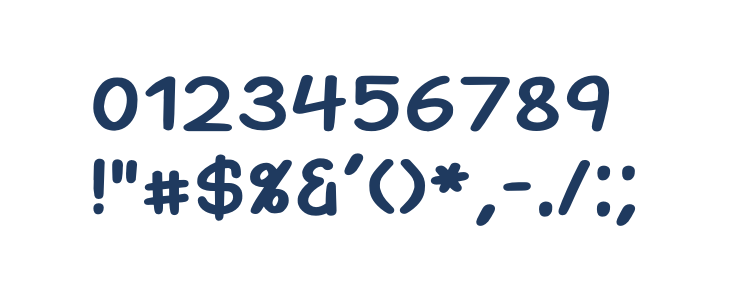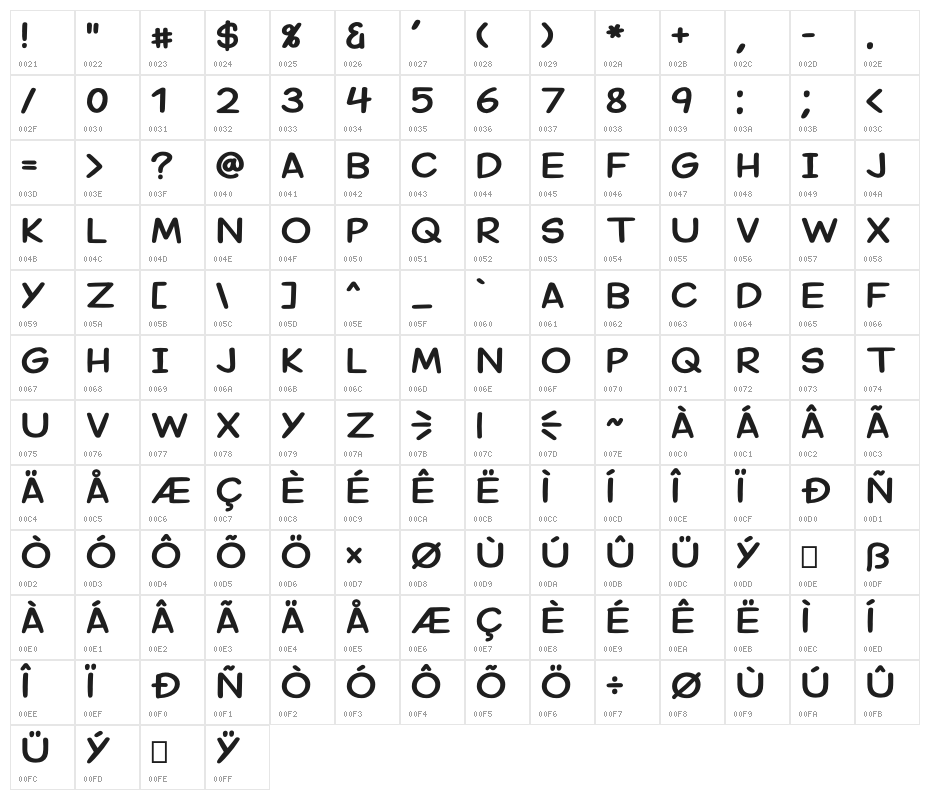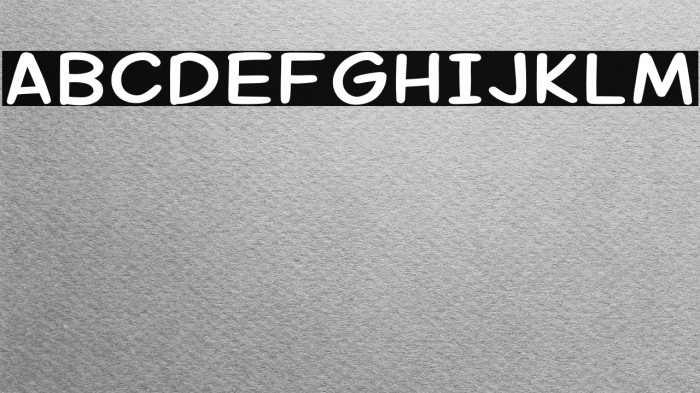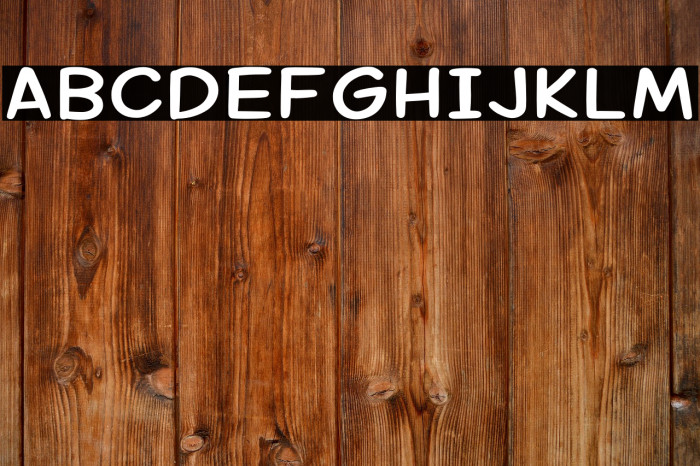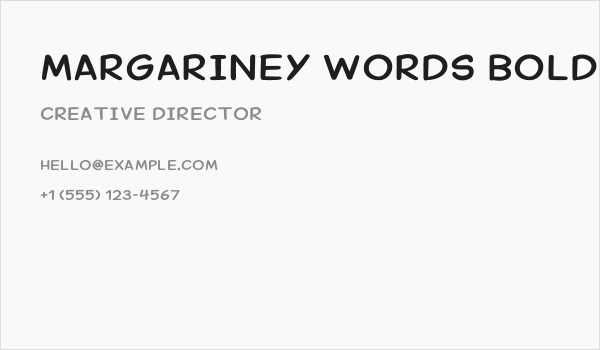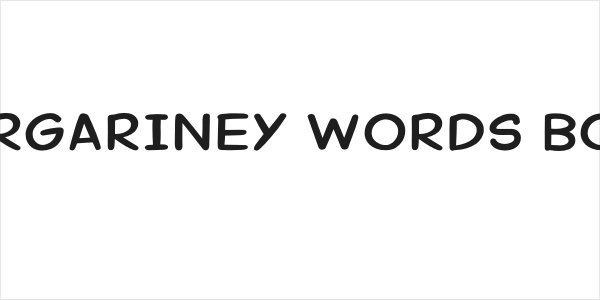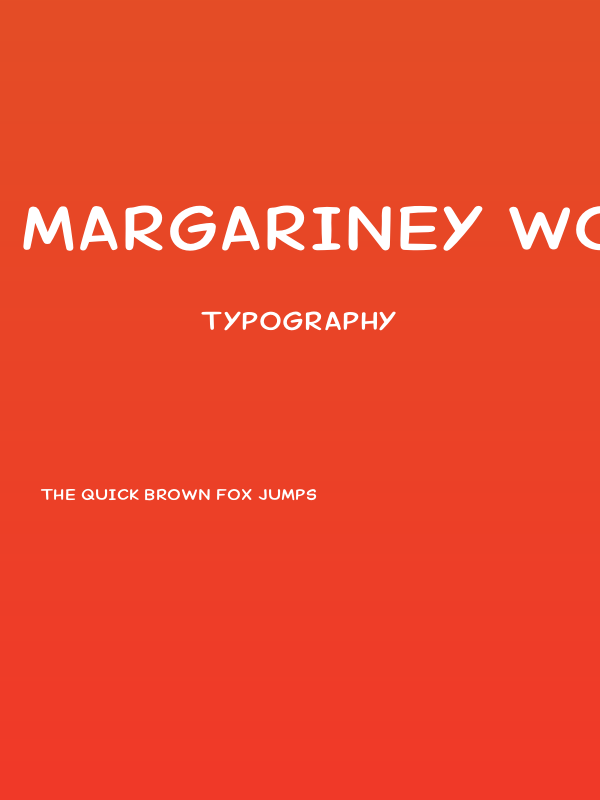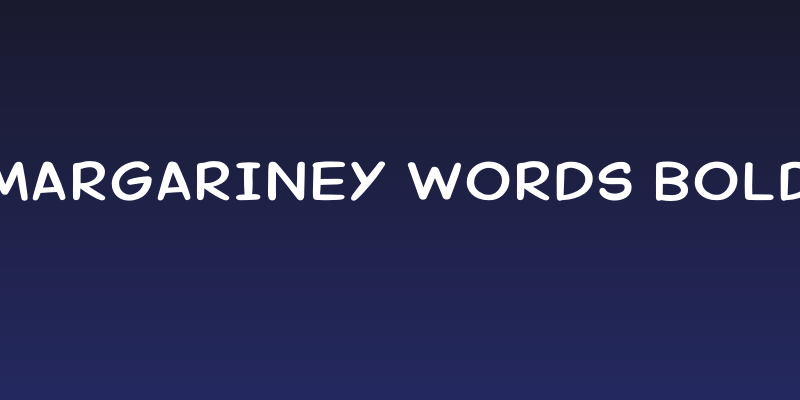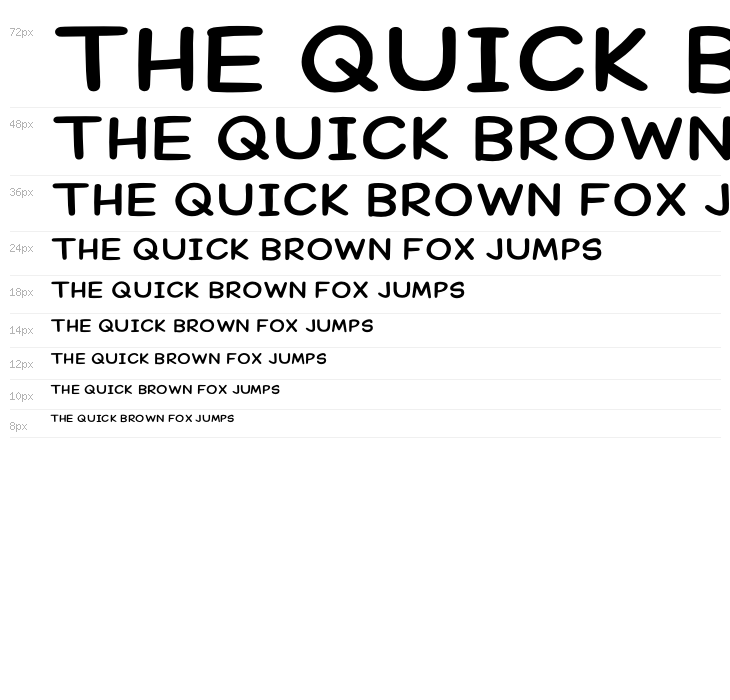
Margariney Words Bold Font
Margariney Words Bold Description
This font features a playful and rounded style, characterized by its bold and smooth letterforms. The characters have a consistent thickness, giving them a uniform appearance. The rounded edges and slightly irregular shapes add a friendly and approachable feel, making it suitable for casual and informal designs. The numerals and special characters maintain the same playful aesthetic, ensuring consistency across all glyphs. Its boldness ensures readability, while the rounded forms provide a soft and inviting look.
| Proposed Projects | Ideal for children's books, playful branding, casual invitations, and friendly social media graphics. |